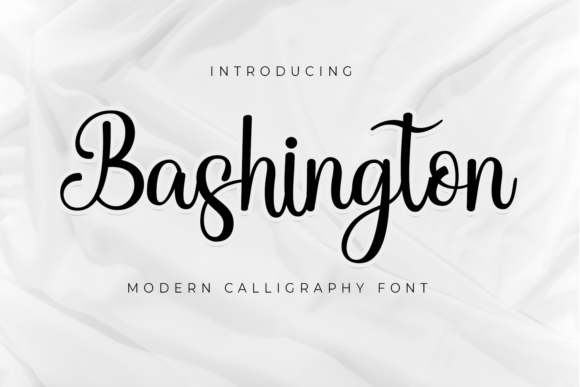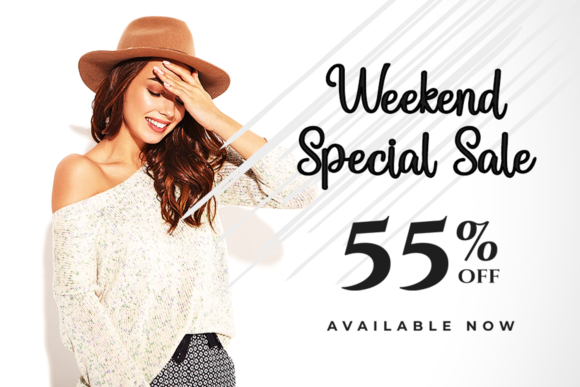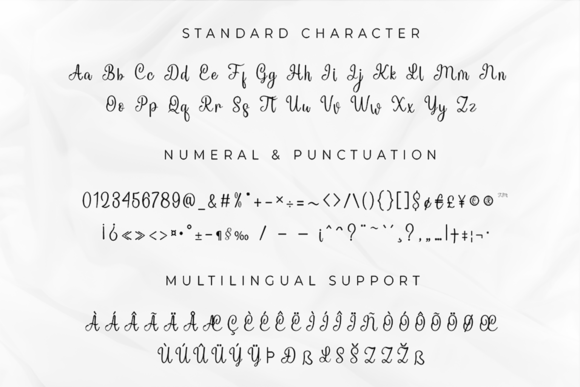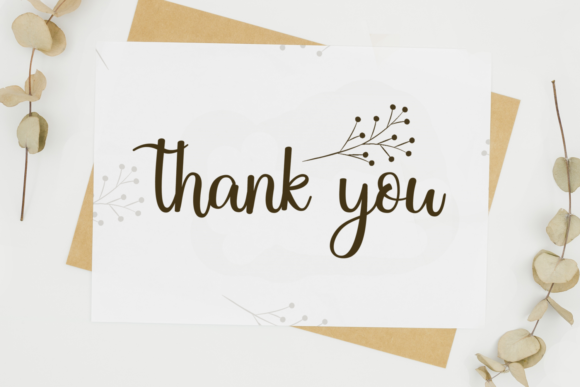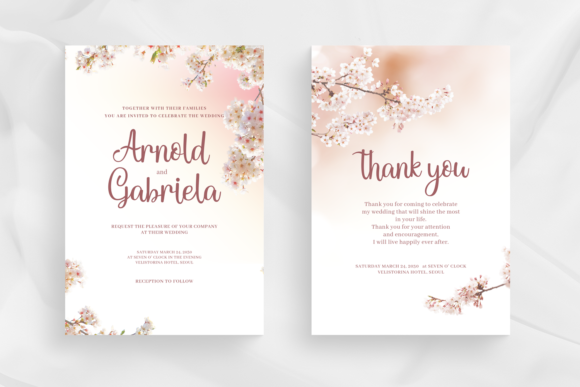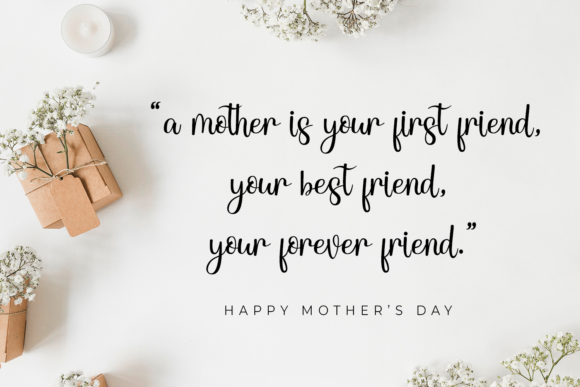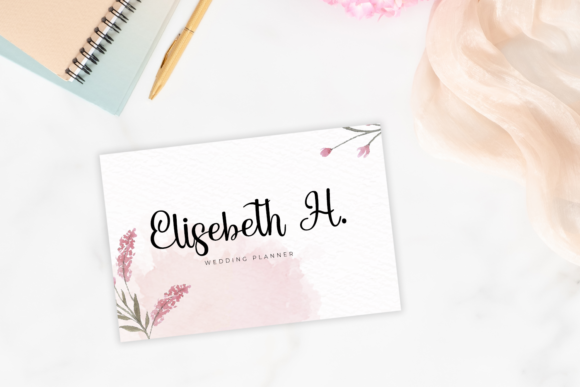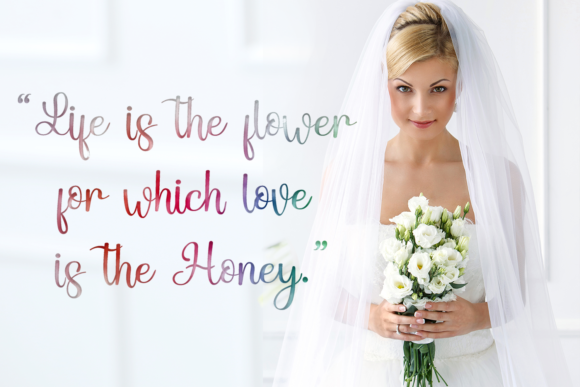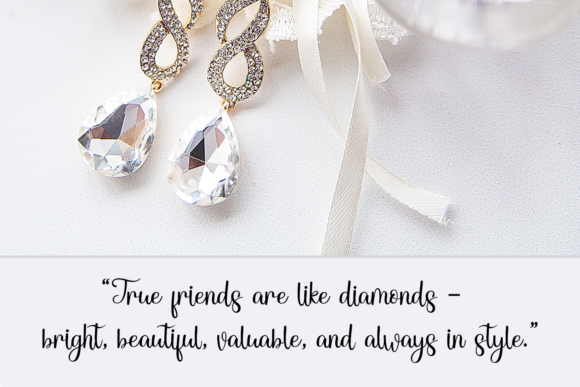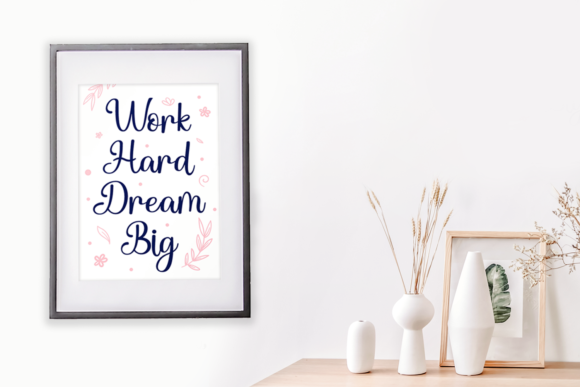
Bashington Font
About Bashington Font
Bashington is a delicate and sweet handwritten font. Fall in love with its authentic feel and use it to create gorgeous wedding invitations, beautiful stationary art, eye-catching social media posts, and cute greeting cards.